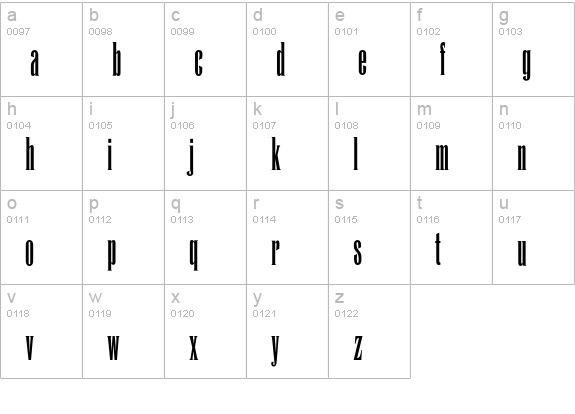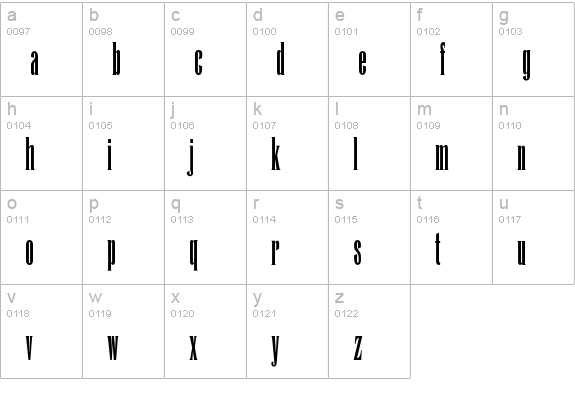
Michelle Font Details
Michelle font is a stylish and modern typeface that exudes elegance and sophistication. Its clean lines and graceful curves make it perfect for a wide range of design projects, from wedding invitations to branding materials. With its timeless appeal, Michelle font brings a touch of class to any project. The best part about Michelle font is that it is completely free to download at FontsMarket.com. This means that you can add this beautiful font to your collection without breaking the bank. Whether you are a professional designer or a hobbyist, Michelle font is a versatile and eye-catching choice that will elevate your designs to the next level. Download it today and start creating stunning visuals with this gorgeous typeface.